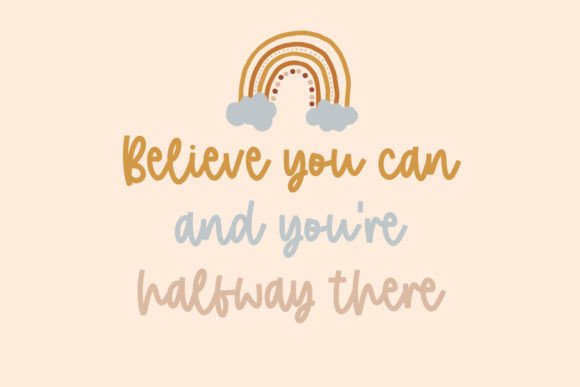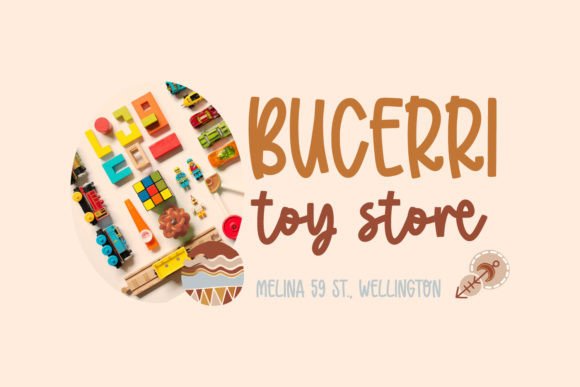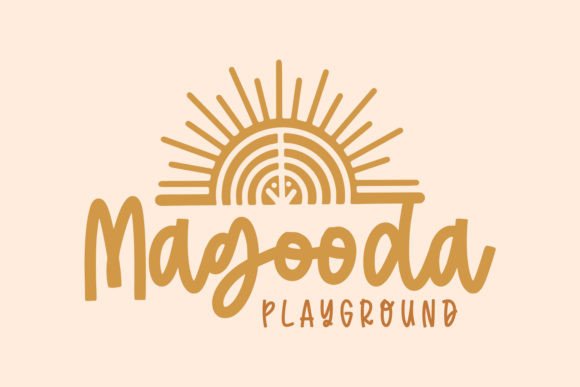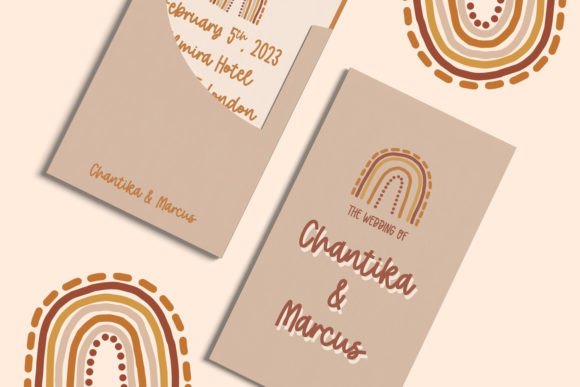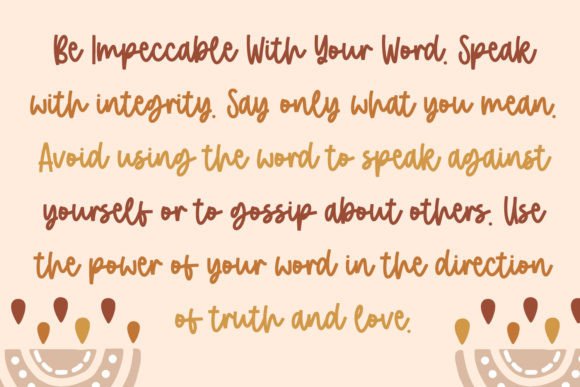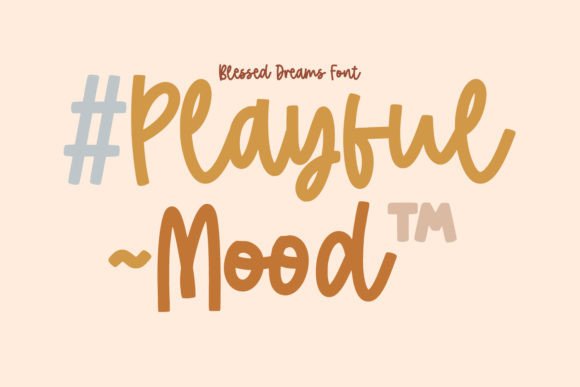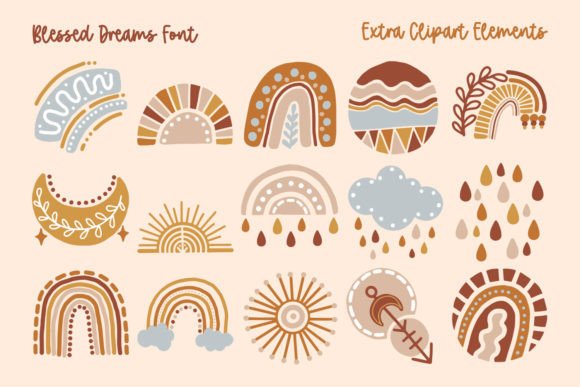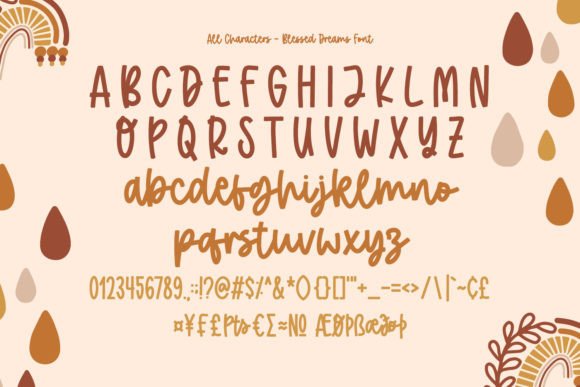
Blessed Dreams Font
Blessed Dreams is a visually attractive display font with soft, gentle nuances caused by the swinging end of the wipes and curves. Each of the letters is interconnected as in the cursive font and the proportions are relatively similar for a legibility reason.